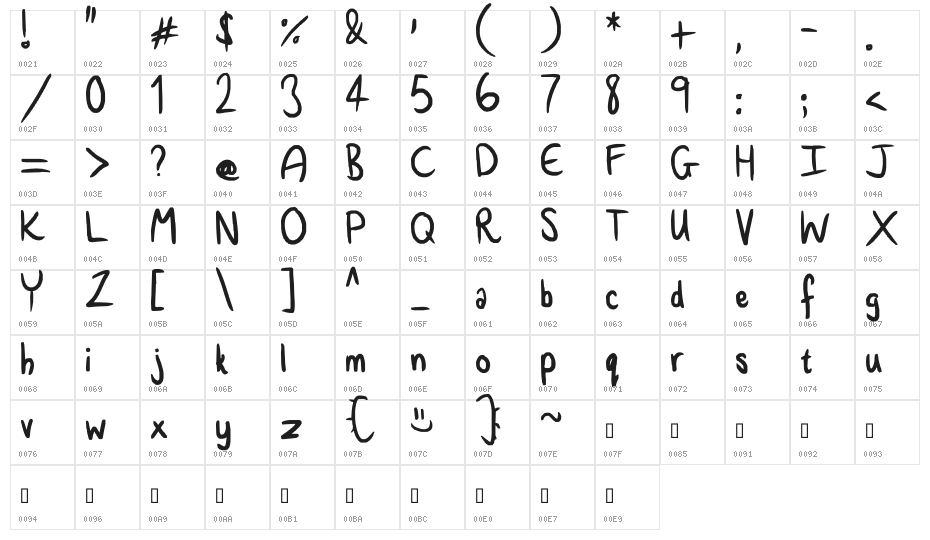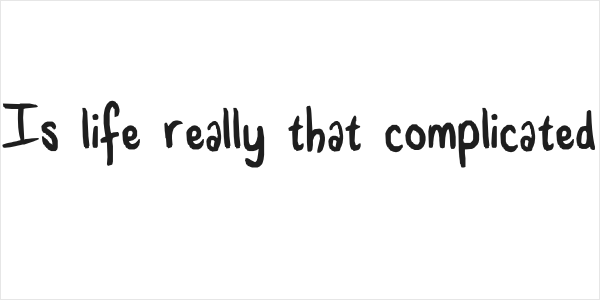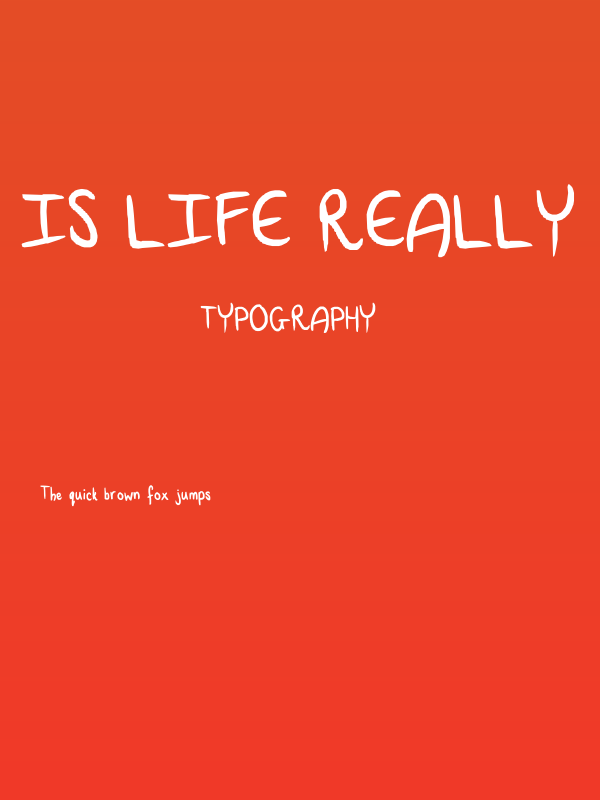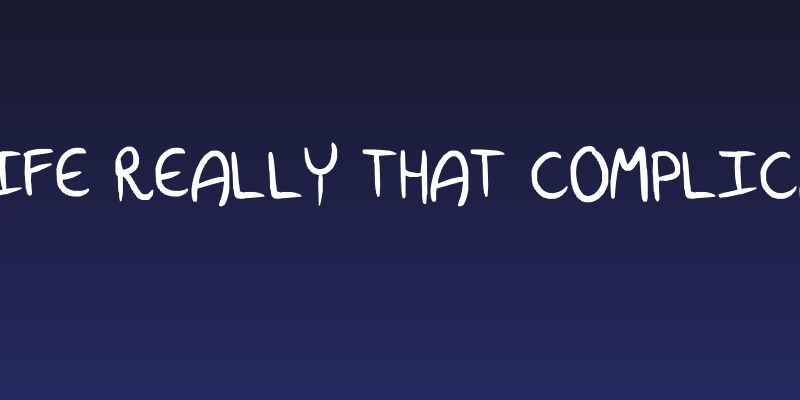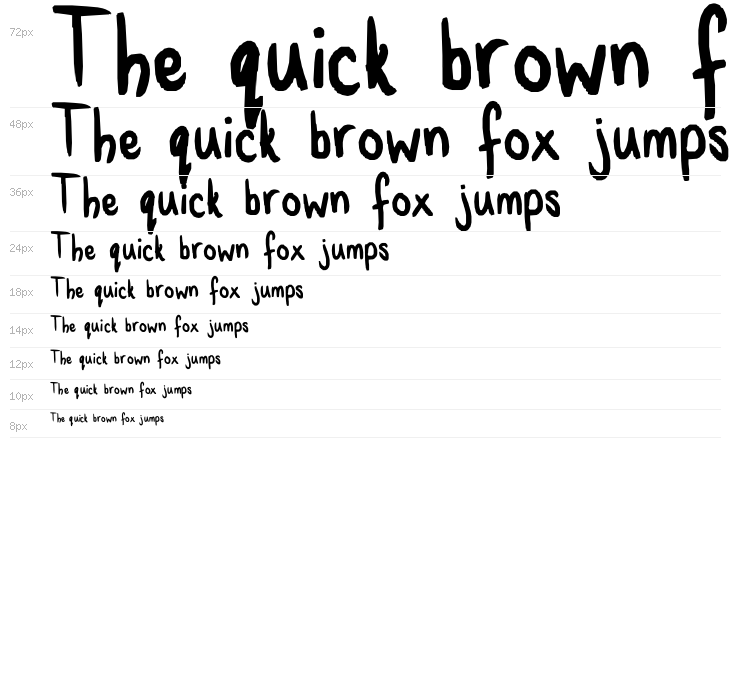
Is life really that complicated Font
Is life really that complicated Description
This font features a playful and casual handwritten style, characterized by its irregular and organic letterforms. The uppercase and lowercase letters maintain a consistent flow, with slight variations in stroke width that add to its informal charm. The numerals and special characters follow the same whimsical design, making them easily recognizable yet unique. The overall appearance is approachable and friendly, suitable for projects that aim to convey a personal touch or a relaxed atmosphere.
| Use Case | Headlines, Informal text, Personal projects |
| Proposed Projects | Ideal for greeting cards, children's books, personal blogs, or any project that benefits from a friendly and informal aesthetic. |